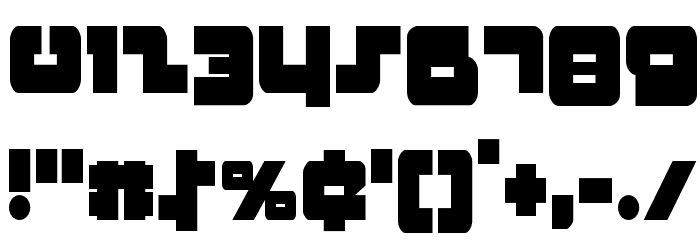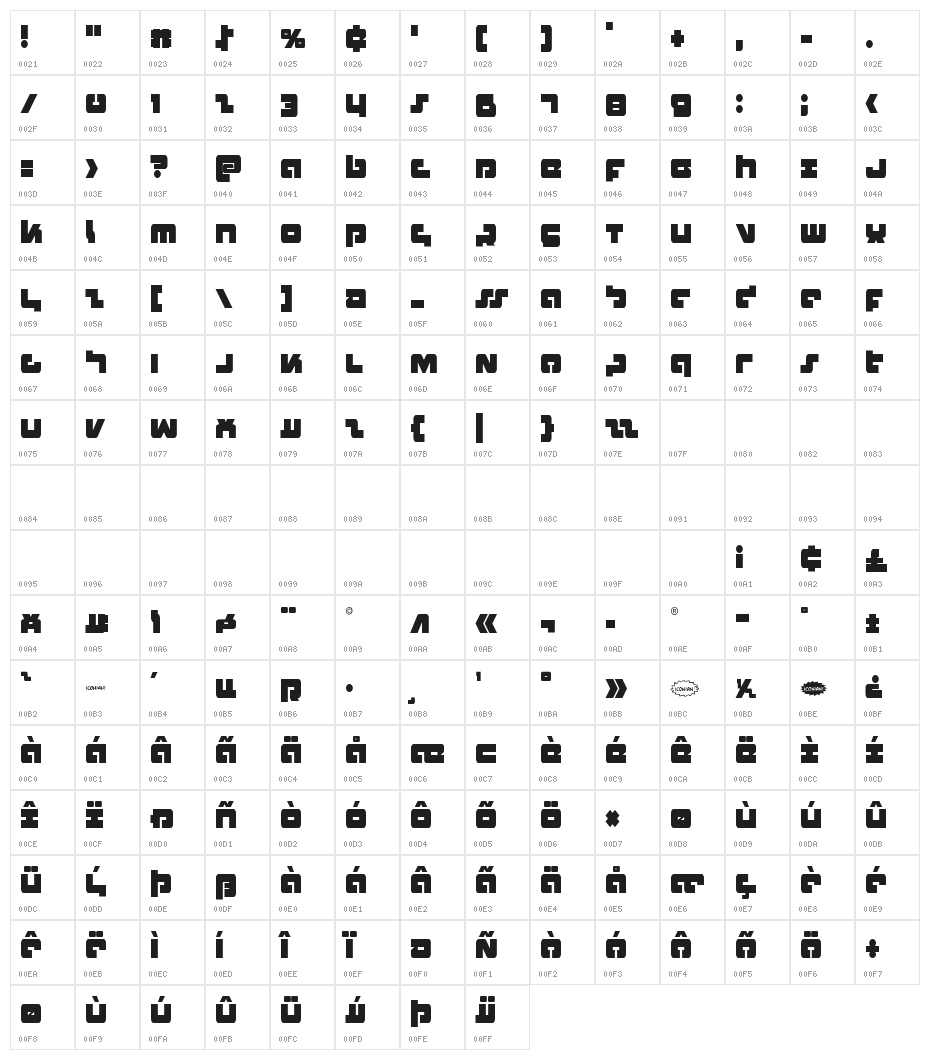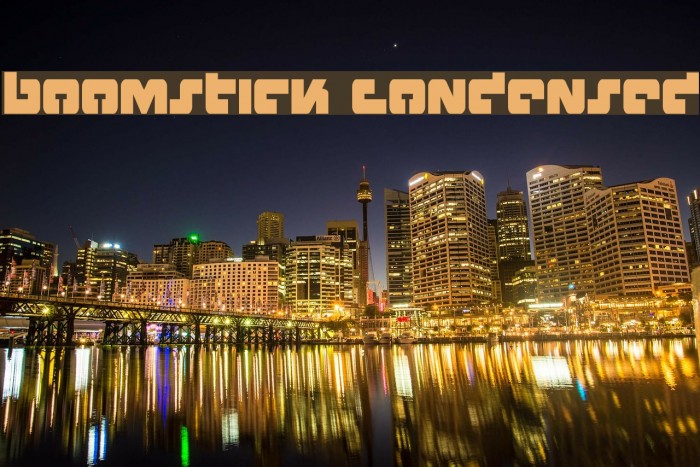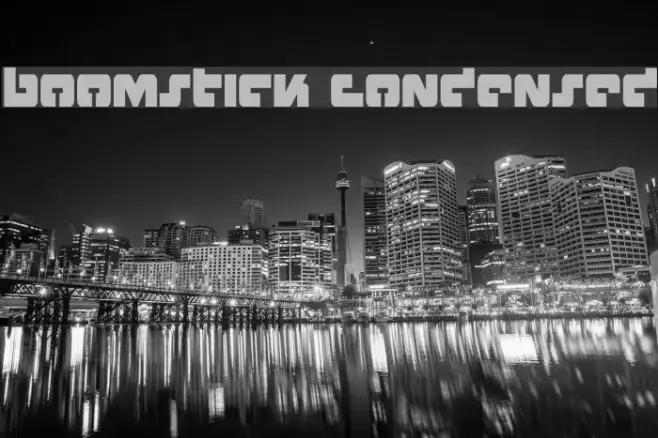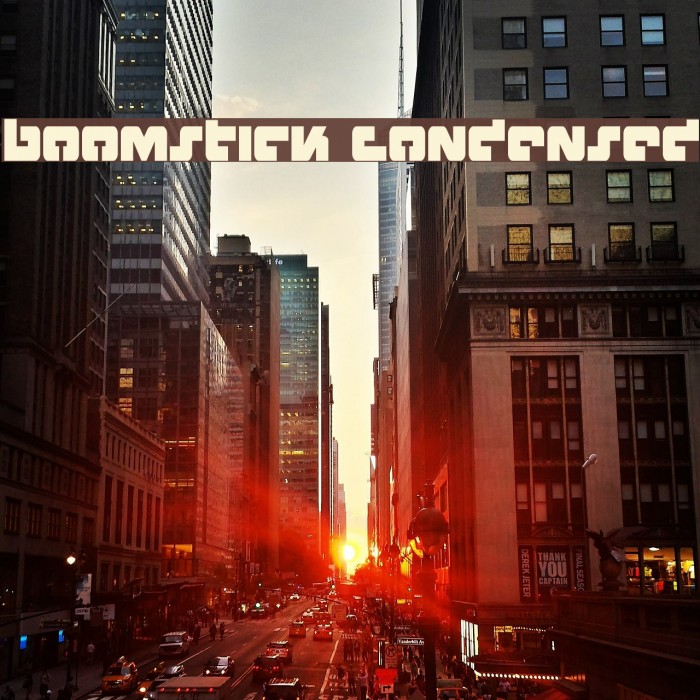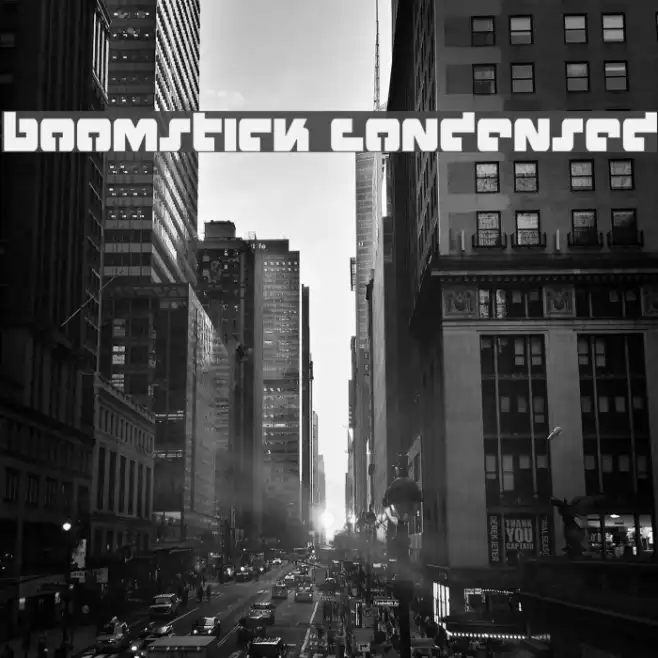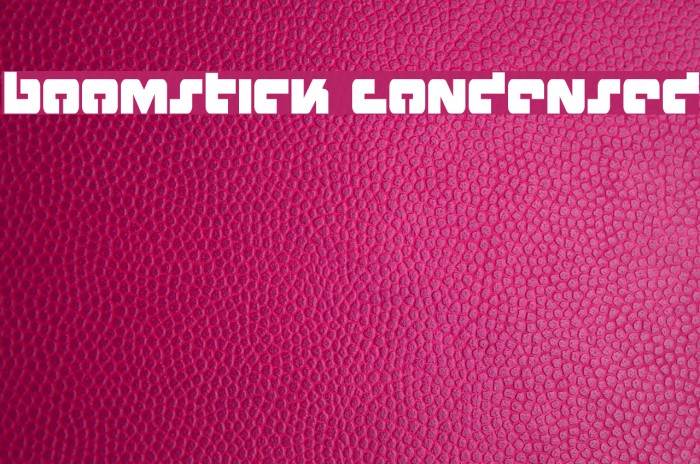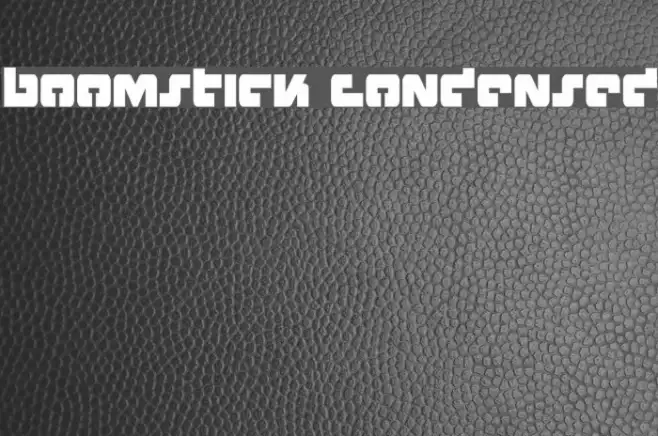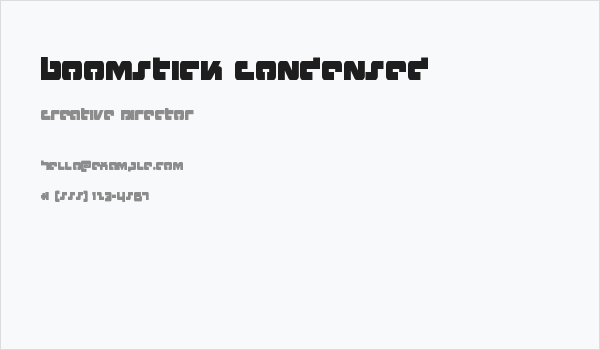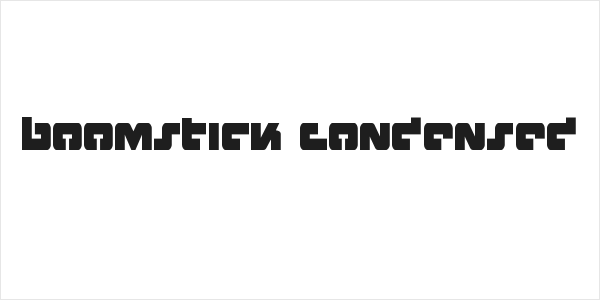
Boomstick Condensed Font
Boomstick Condensed Description
This font features a bold and geometric design, characterized by its blocky and condensed letterforms. The characters are constructed with sharp angles and straight lines, giving it a futuristic and industrial appearance. The uppercase and lowercase letters maintain a consistent height, enhancing its uniformity. Numbers and special characters follow the same design principles, ensuring a cohesive look across all glyphs. The font's solid and robust structure makes it highly legible, even at smaller sizes, while its unique style adds a distinctive flair to any text.